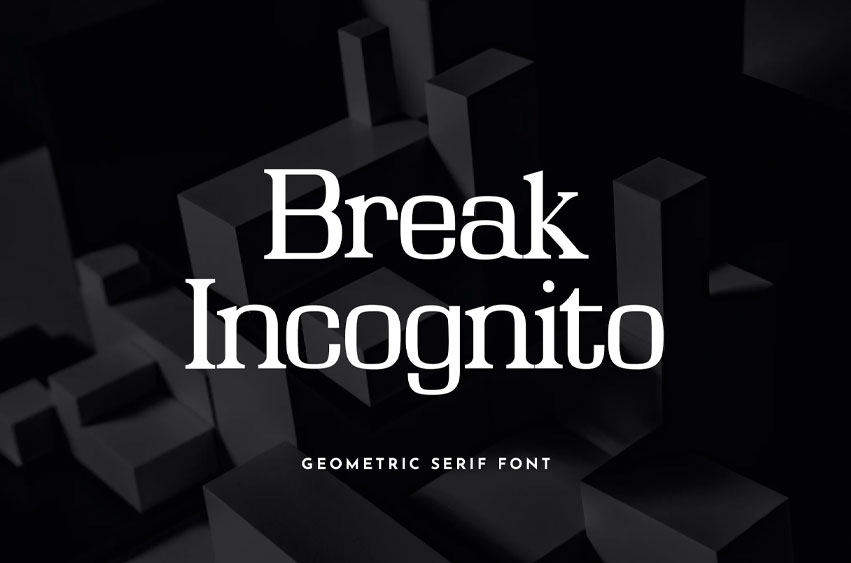
Break Incognito Font
Break Incognito Font is Serif Font and also has vintage display font. Can make it easier to convey the message in your design.
Use for awesome display, labeling, clothing, movie sceen, poster, movie title, gigs, album covers, logos, and much more. It’s also could be good for both fun and semi-formal text.